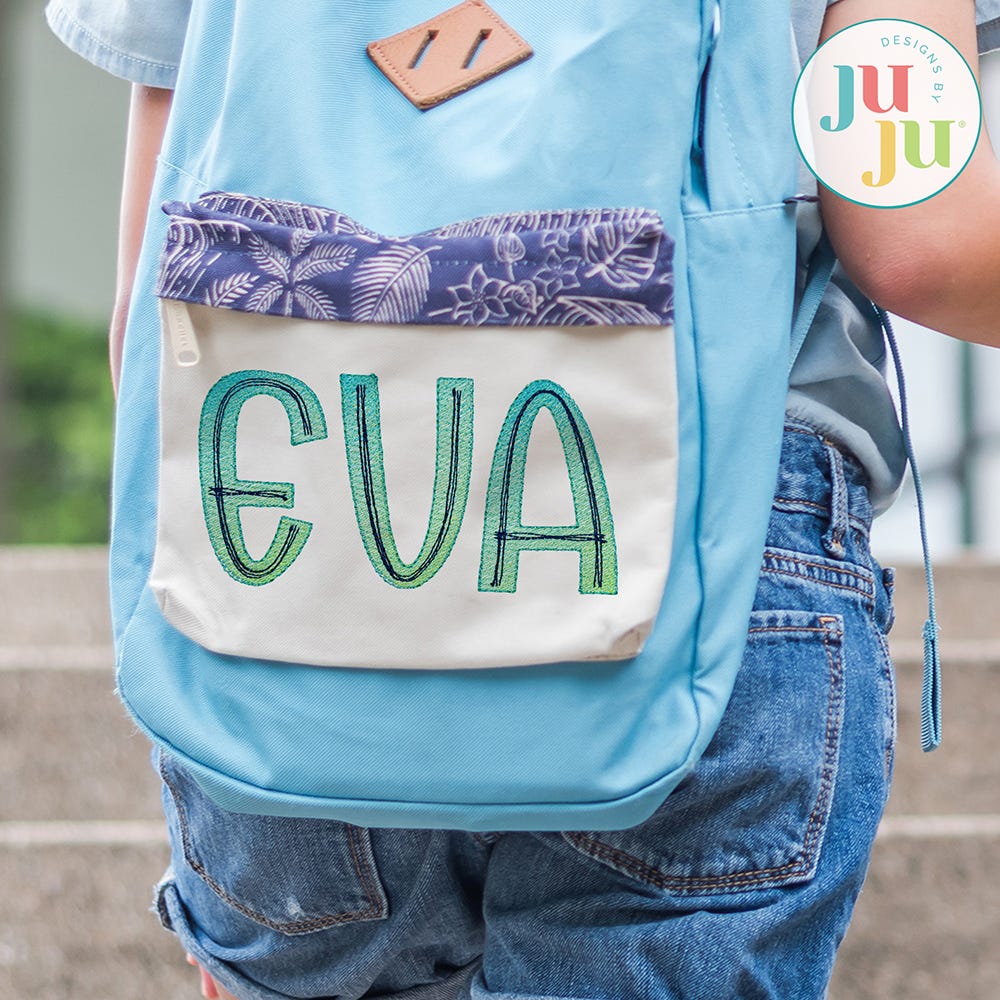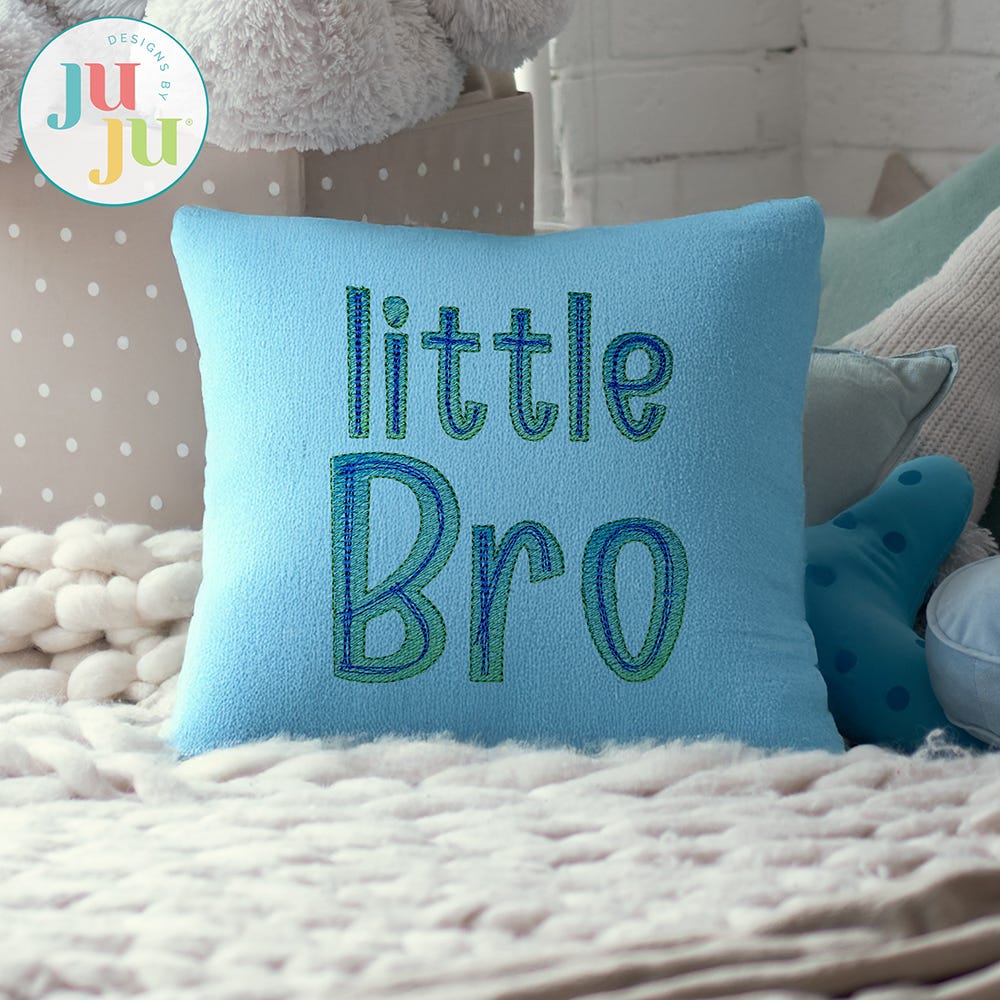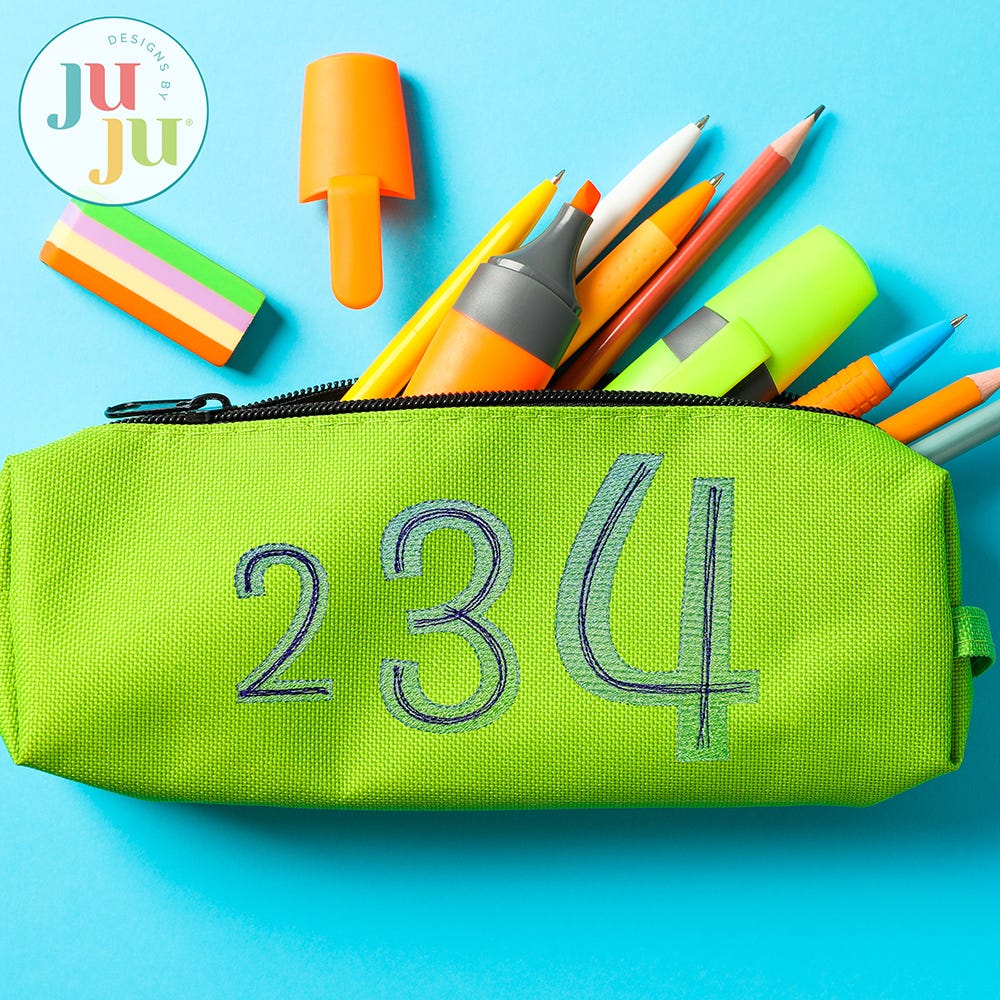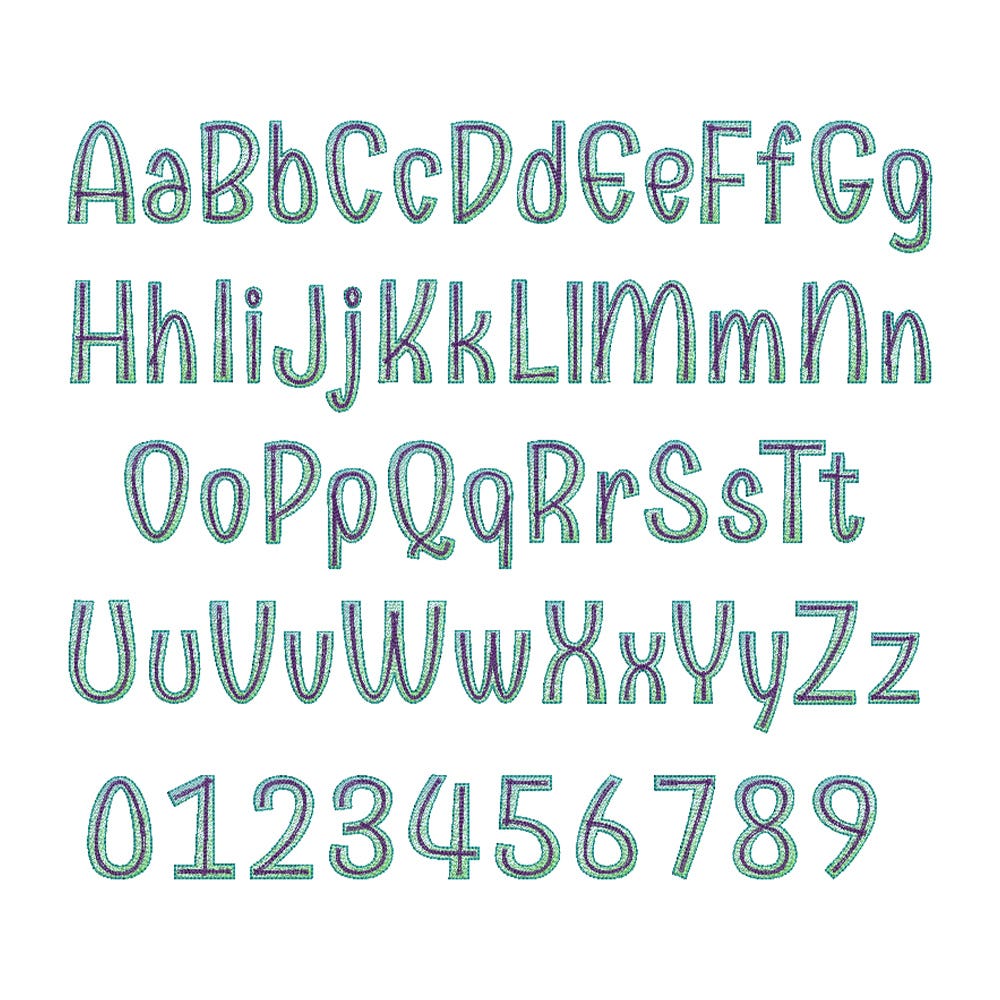
Emmy Doodle Sketch Embroidery Font
Please note: This is not applique, nor is it a traditional satin or fill stitch font. The light and airy "sketch" fill pattern allows for a quick stitch-out. The space between each line of stitching varies and the two colors combine to create the ombre effect. We do NOT recommend resizing designs with sketch elements in software. Each character also features accent stitching done in multiple strokes of bean stitching and a bean stitch outline.
The ombre effect works best if the first and second colors are different, but side by side on the color wheel. The ombre effect will be stronger if the first color is lighter than the second; the ombre effect will be more subtle if the two colors are similar in tint or shade. Please refer to sample images in this blog post, which includes further tips about using an ombre sketch font.